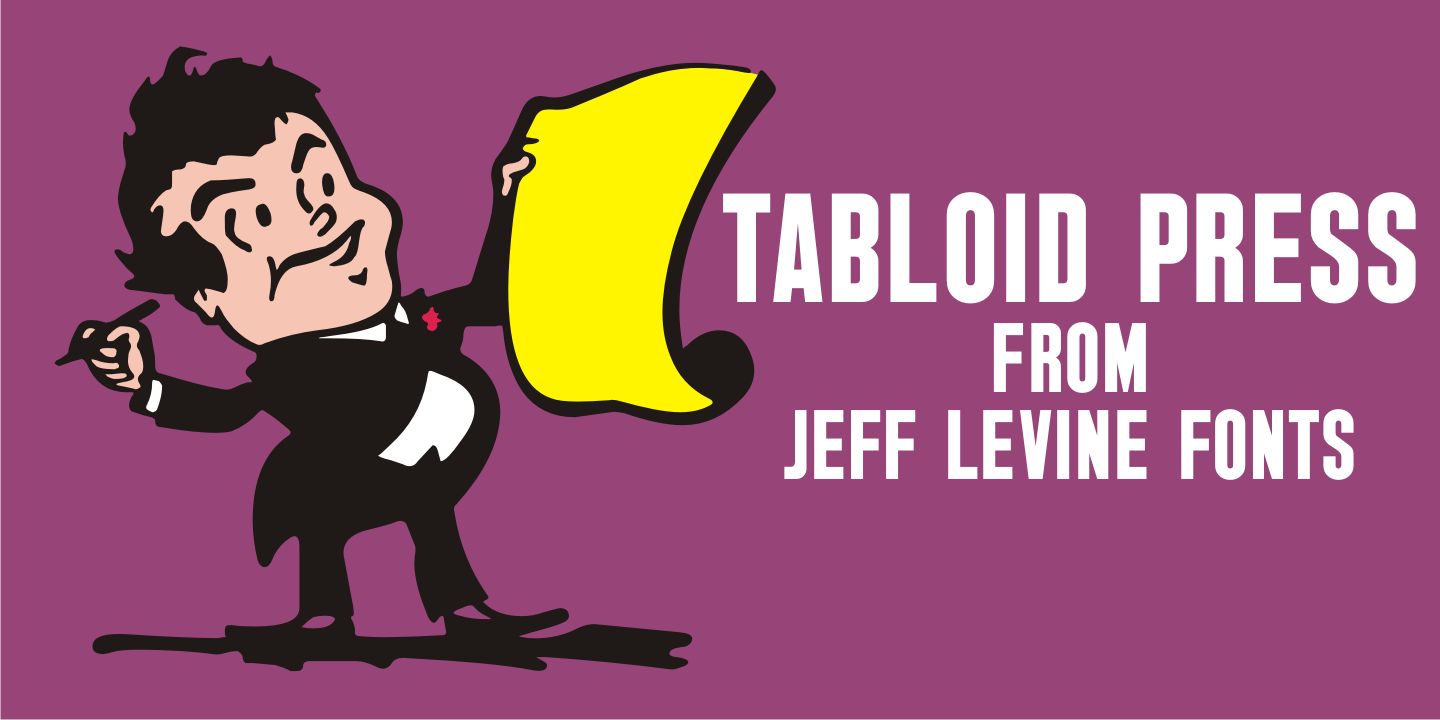
This distinctive typeface is an excellent choice for projects that aim to evoke a sense of classic newspaper headlines, vintage sensationalism, and a raw, immediate impact. Imagine it dominating the covers of retro magazines, providing a bold statement for historical documentaries, or bringing an authentic journalistic feel to entertainment posters. Tabloid Press JNL Font is also perfectly suited for designing unique event promotions, crafting distinctive logos for vintage-themed brands, or creating compelling visuals for anything that needs to grab attention with a dramatic flair. Its often condensed, all-caps, and slightly rough or textured forms, reminiscent of old letterpress printing, make it an ideal option for any design seeking to convey urgency, public outcry, and an undeniable sense of yesteryear's news, such as theatrical playbills, protest signage, or vintage crime novel covers.
What makes Tabloid Press JNL Font so exciting? It directly channels the raw, impactful aesthetic of early 20th-century tabloid newspapers, designed to shout headlines from a distance. The letterforms are characterized by their condensed width, powerful presence, and often a subtle ink-bleed or worn-print texture that adds to its authenticity. This font doesn’t just convey text; it screams the news, imbued with the character and immediacy of breaking stories. It's engineered to stand out in situations where a clear, bold, and attention-grabbing statement is required, ensuring your message is not only seen but also felt with a sense of urgency and historical grit. The inherent assertiveness and unfiltered appeal of its character shapes make it particularly effective for brands that champion direct communication, historical narrative, and a visually arresting, retro identity.
The Tabloid Press JNL Font family typically offers a focused range of weights or styles that align with its strong display purpose. You can expect to find options centered around its classic bold, condensed style, possibly with variations that offer different levels of ruggedness or clean precision. While a "Pro" version might include additional OpenType features for fine-tuning, the core strength lies in its impactful simplicity and directness. The design ensures that Tabloid Press JNL Font remains a consistent and powerful tool for headlines, titles, and short, punchy messages where maximum visual presence is paramount. Its unwavering clarity and impactful design make it a reliable choice for conveying information that needs to be seen and understood immediately, embodying a sense of straightforward communication and vintage American journalism.
Whether you're creating a memorable advertising campaign with a retro twist, building a brand identity for an edgy publication, or simply need a typeface that speaks with undeniable power and a raw, direct attitude, Tabloid Press JNL Font Free Download is an outstanding choice. Its distinctive impact and versatile nature will ensure your designs always leave a commanding and memorable impression.